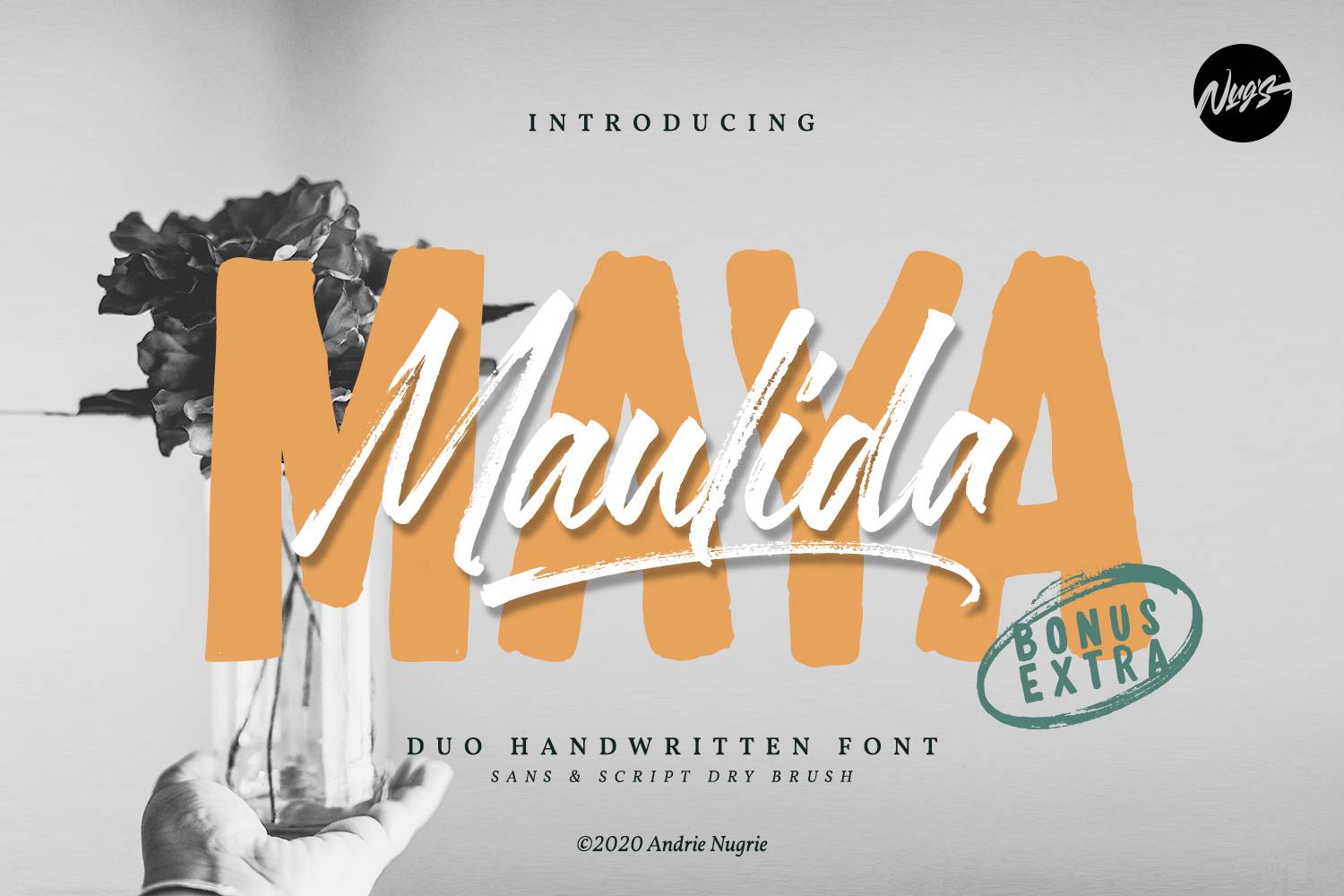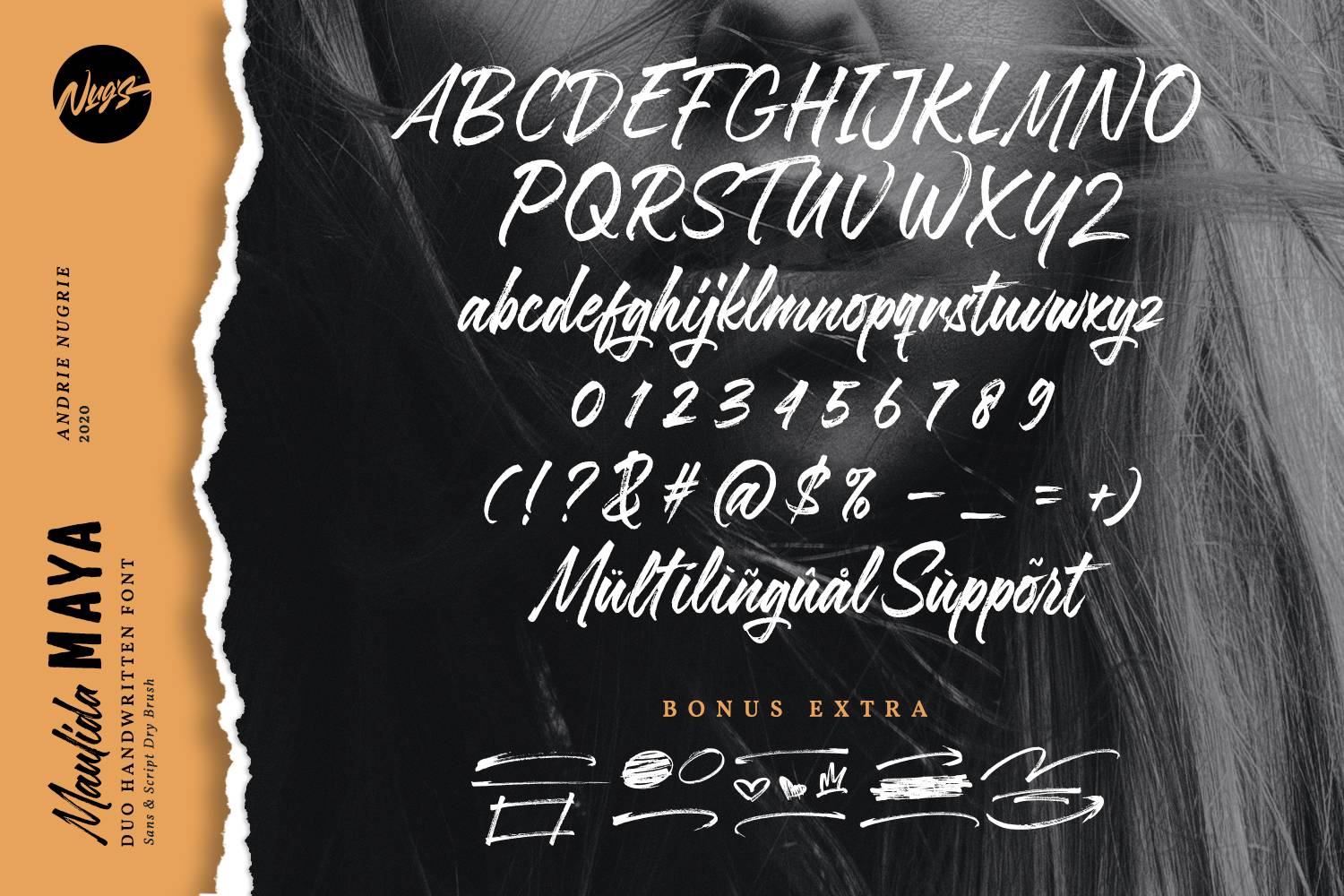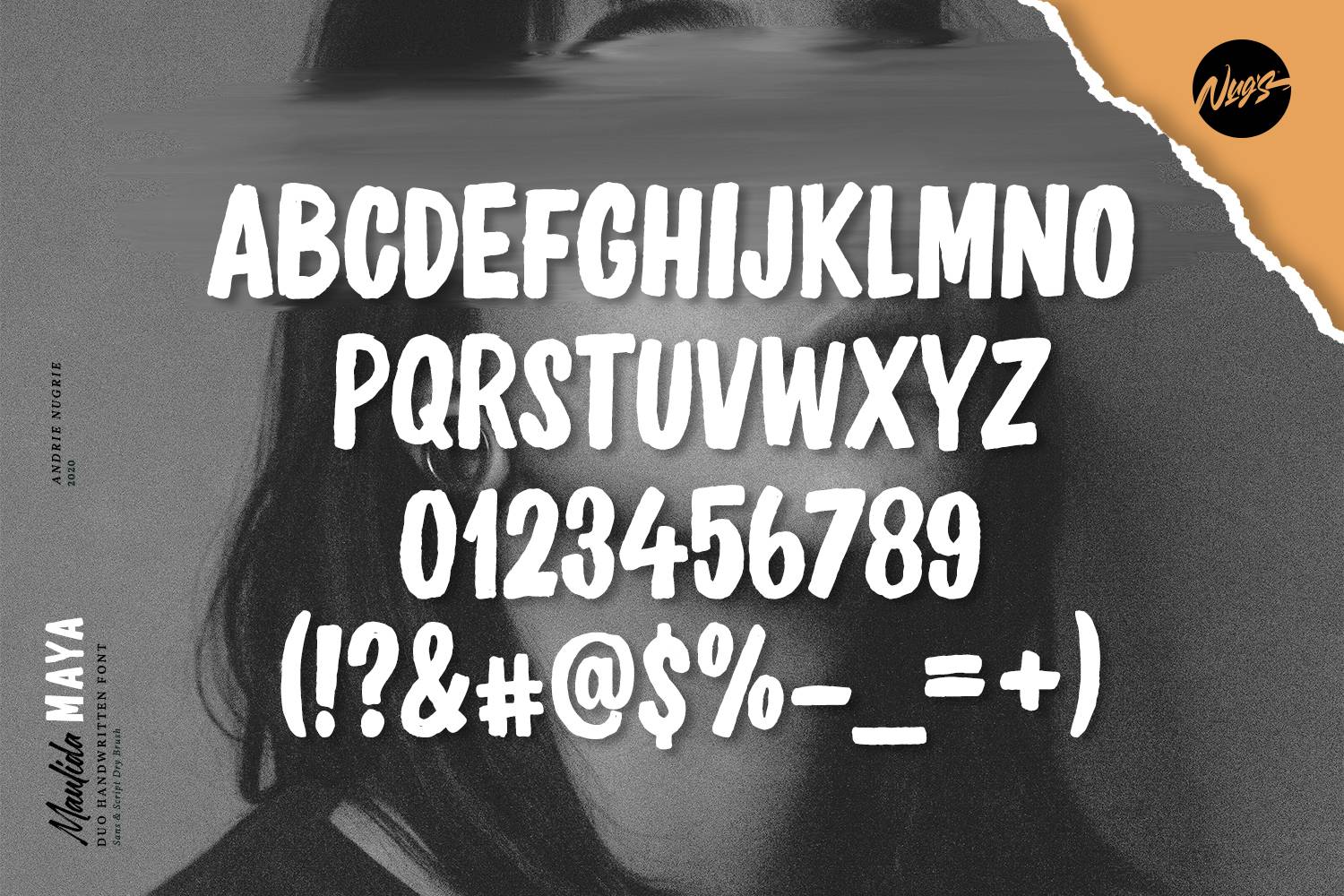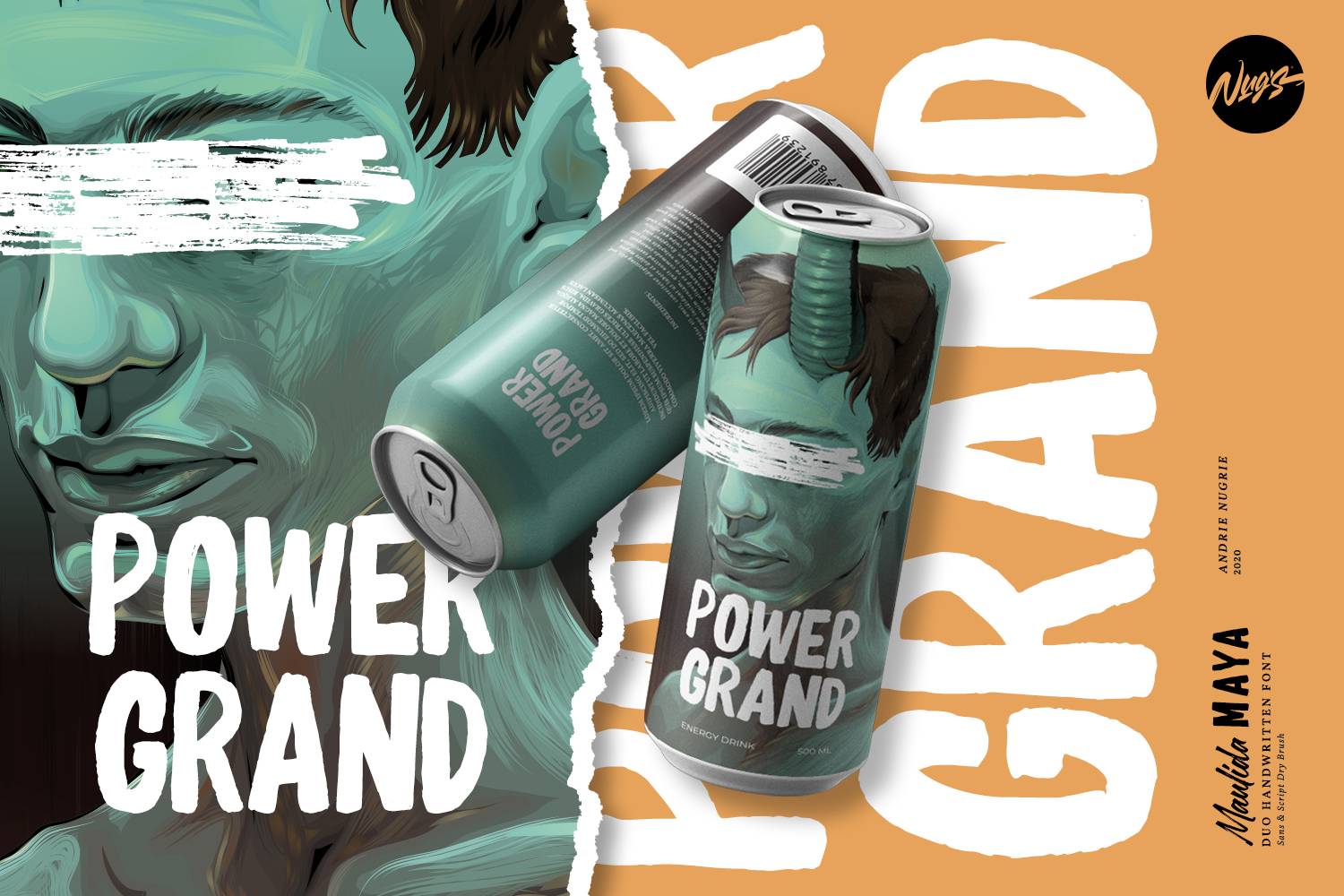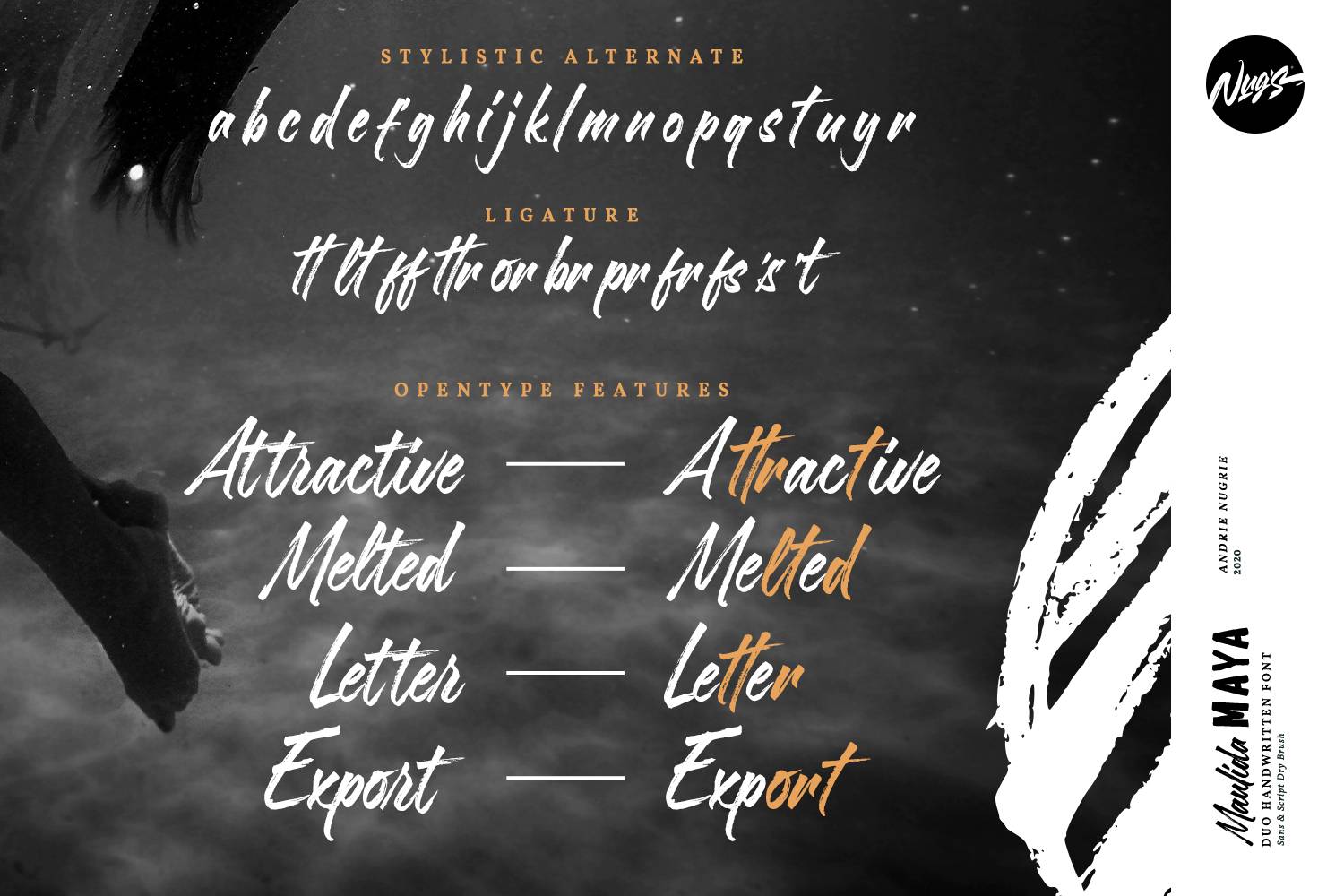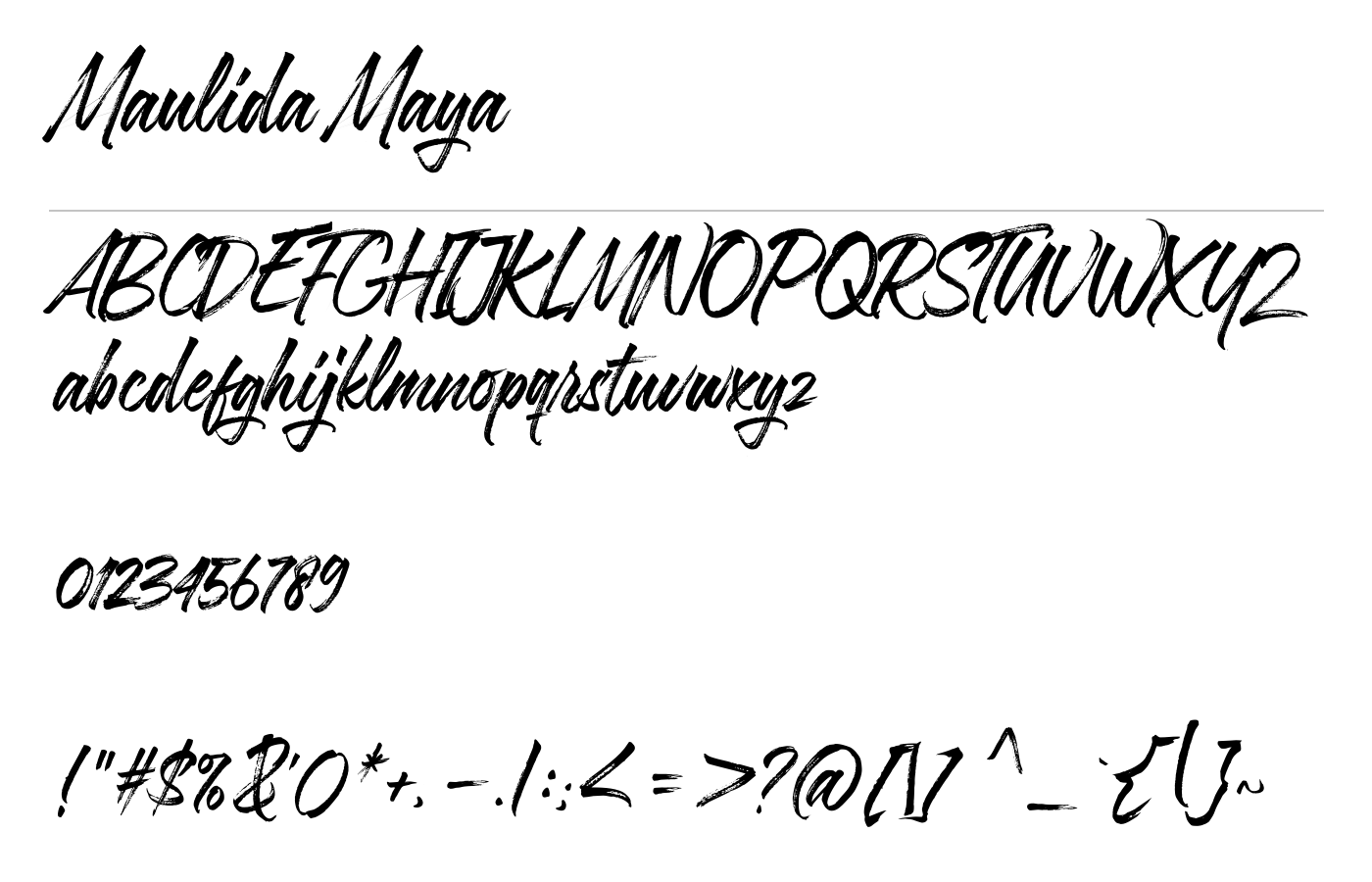
Maulida Maya is a lively and expressive brush script font characterized by its bold, textured strokes and dynamic flow, giving it a hand-painted, artistic feel. With its casual yet elegant style, it works well for creative branding, packaging, and headlines where a personal, energetic touch is desired. This font captures a sense of movement and authenticity, making it perfect for projects that aim to stand out with a handcrafted, modern flair.
Maulida Maya Font
About Maulida Maya Font
| Font family | Maulida Maya Font |
| Designer | Andrie Nugrie |